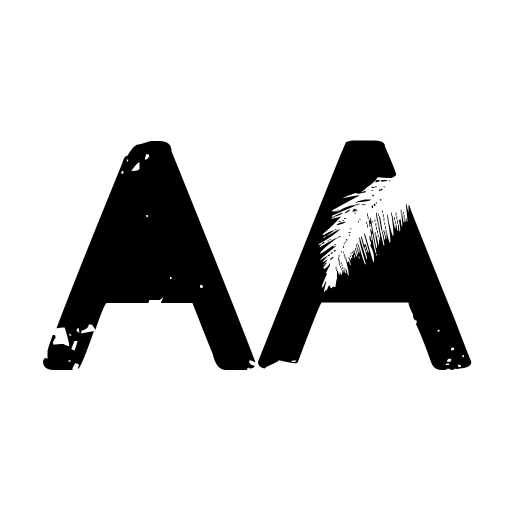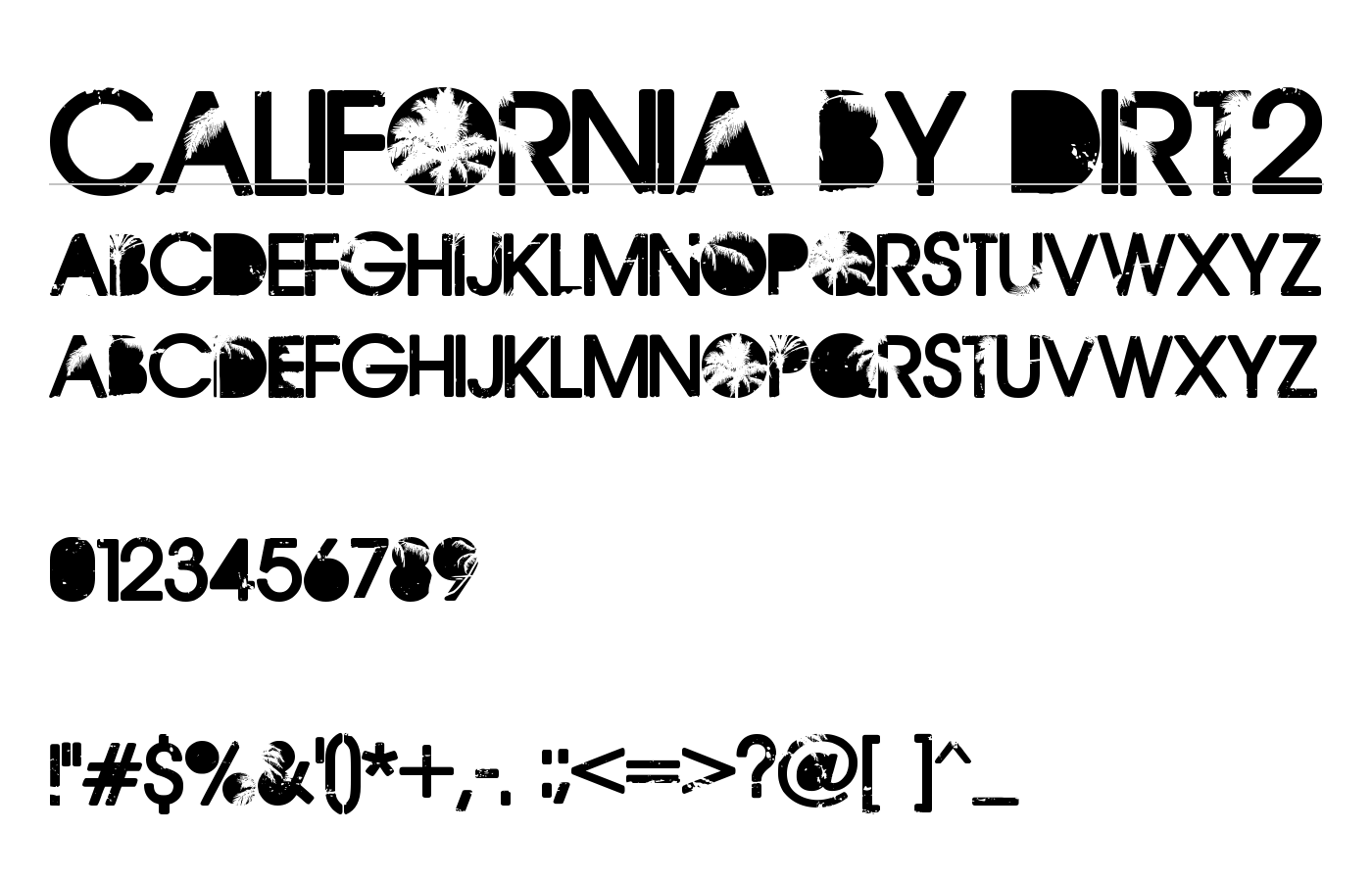
California by Dirt2 Font is a bold, all-caps sans serif with a rugged, distressed texture that adds a raw, vintage vibe. Its sturdy geometric forms combined with weathered, irregular patches evoke a laid-back, beach-inspired mood, making it ideal for edgy branding, posters, and designs seeking an urban-cool, worn-in look. This font shines in headline use where its unique texture and strong presence can stand out and grab attention.
California by Dirt2 Font
About California by Dirt2 Font